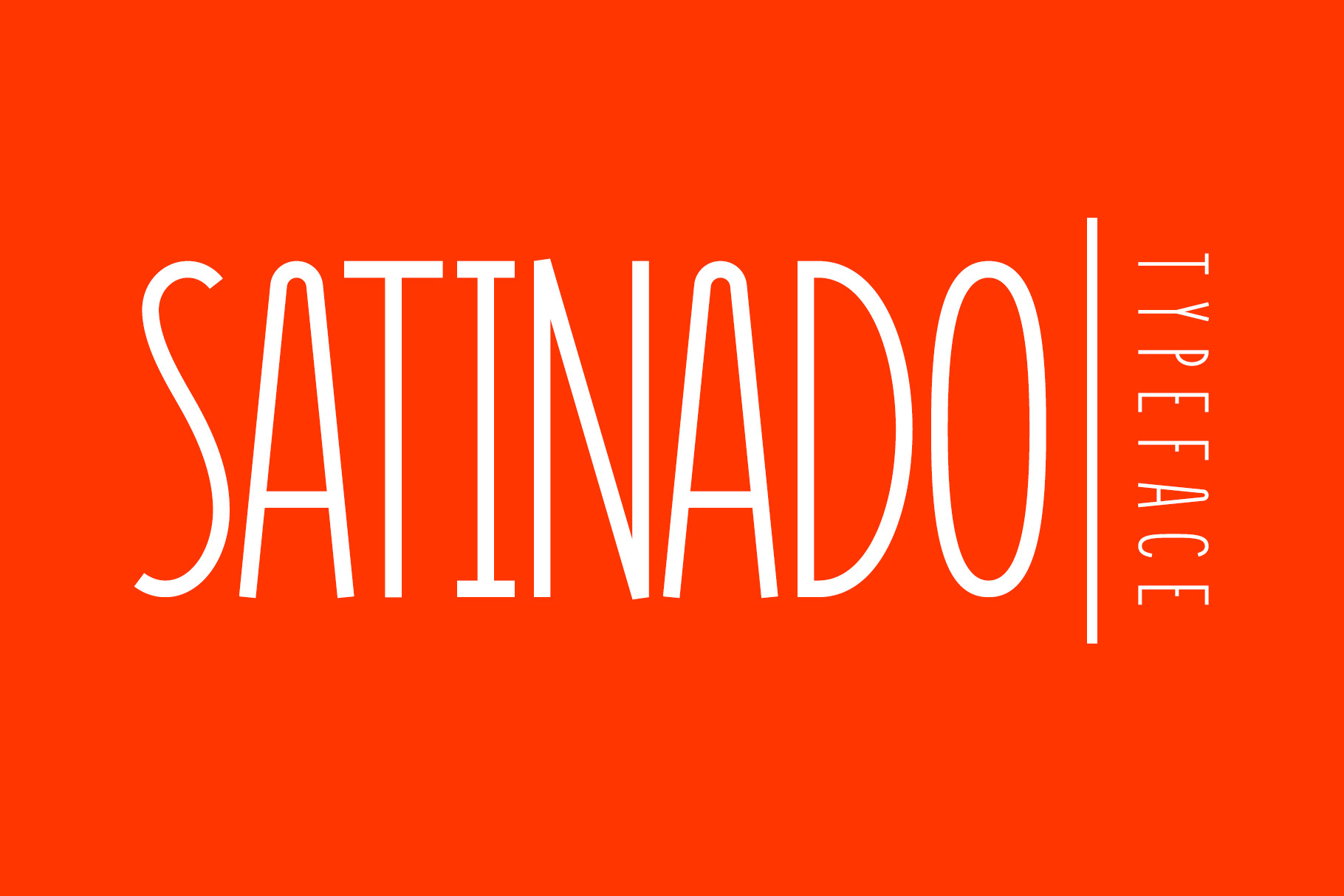
Satinado Sans Serif Font
This typeface was designed specifically for your project. No matter what you create, this font is perfect for your application, iOS, Android, Websites and presentation or Graphic Design. A magnificent combination of lines and proportions creates a stunning and modern design. Created with passion to deliver the highest quality product.
- Latin and Cyrillic alphabets
- 555 glyphs